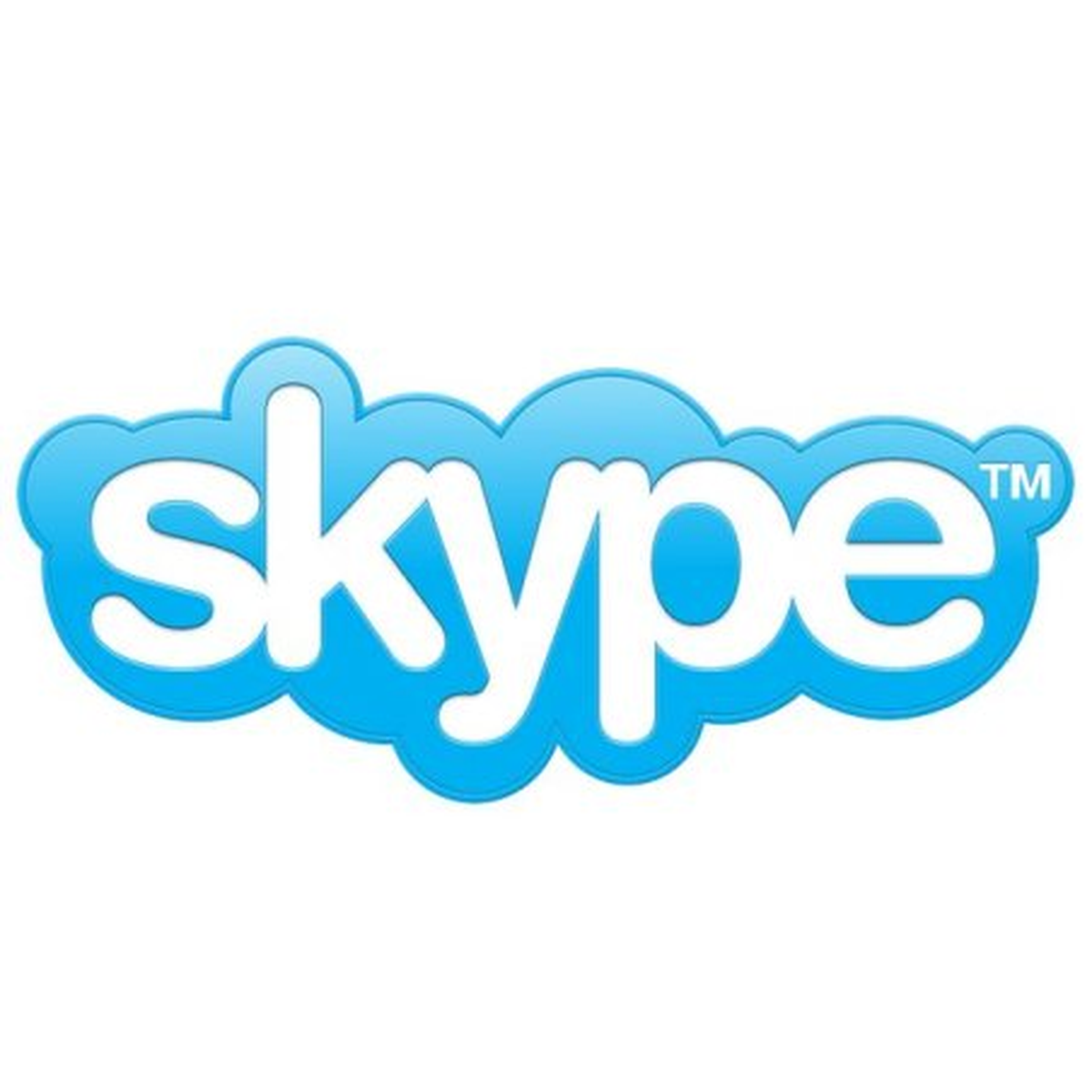
About Skype
Skype is the pioneering voice and video calling service launched in 2003 and acquired by Microsoft in 2011. For two decades it was shorthand for the video call, and its friendly identity, built around a cloud-shaped logo and soft rounded lettering, helped make internet calling feel approachable and human rather than technical.
Skype's branding leaned on warmth to take the intimidation out of a new technology, pairing its blue cloud mark with a bold rounded sans whose soft terminals echoed the logo's curves. That rounded, friendly wordmark carried across the desktop app, mobile and marketing for years, and the style remains a reference point for communication and consumer-tech branding that wants to feel personable. That bold rounded sans look is what this font recreates.
What font does Skype use?
Skype uses Arial Rounded MT Bold, the rounded variant of Arial (Monotype), the bold rounded sans used in the Skype wordmark. A commercial Monotype release that also ships with many operating systems.
Where this style works
Bold rounded sans-serifs like Arial Rounded work for communication and consumer-tech branding, kids and education apps, friendly product UI, app icons and buttons, packaging that wants to feel approachable, and any wordmark that should read as warm and human. The rounded terminals soften the heavy weight so it stays friendly at large sizes.
What fonts are similar to the Skype font?
Bold rounded sans-serifs in the same family of look include VAG Rounded, Helvetica Rounded, Omnes, and Quicksand Bold. Free options via Google Fonts include Nunito and Varela Round.